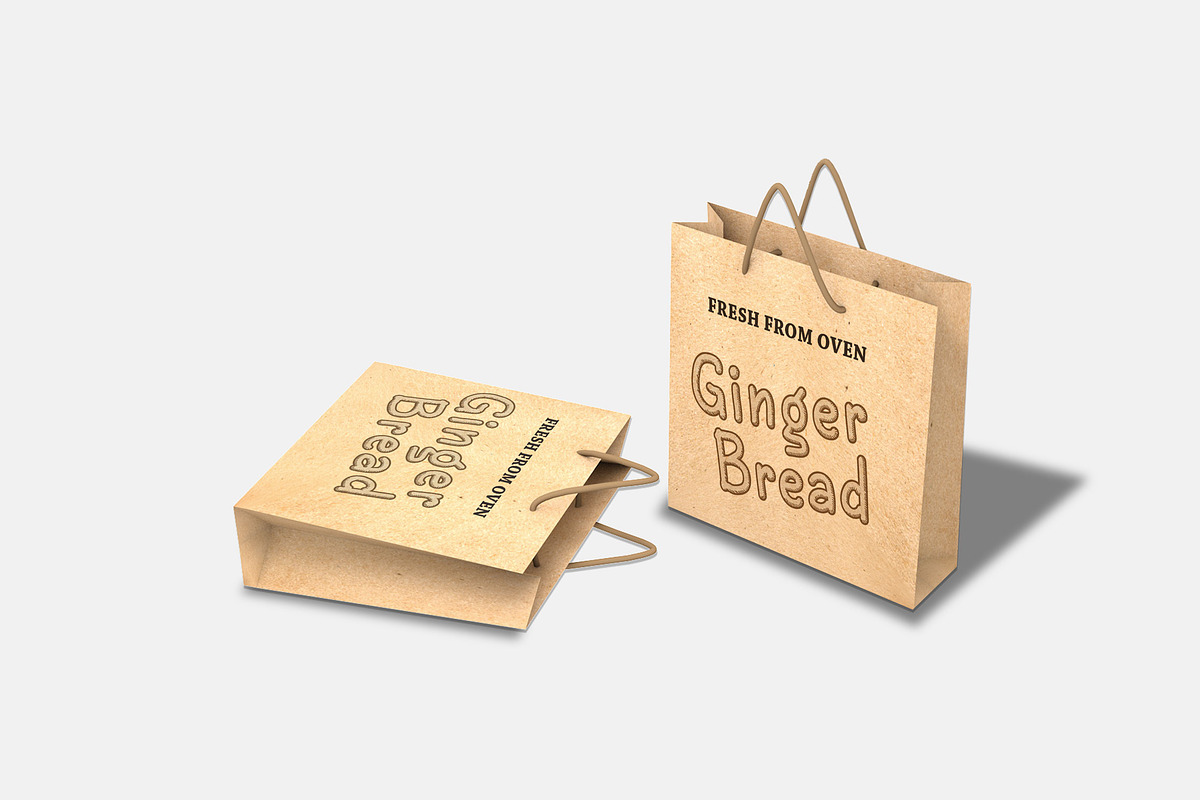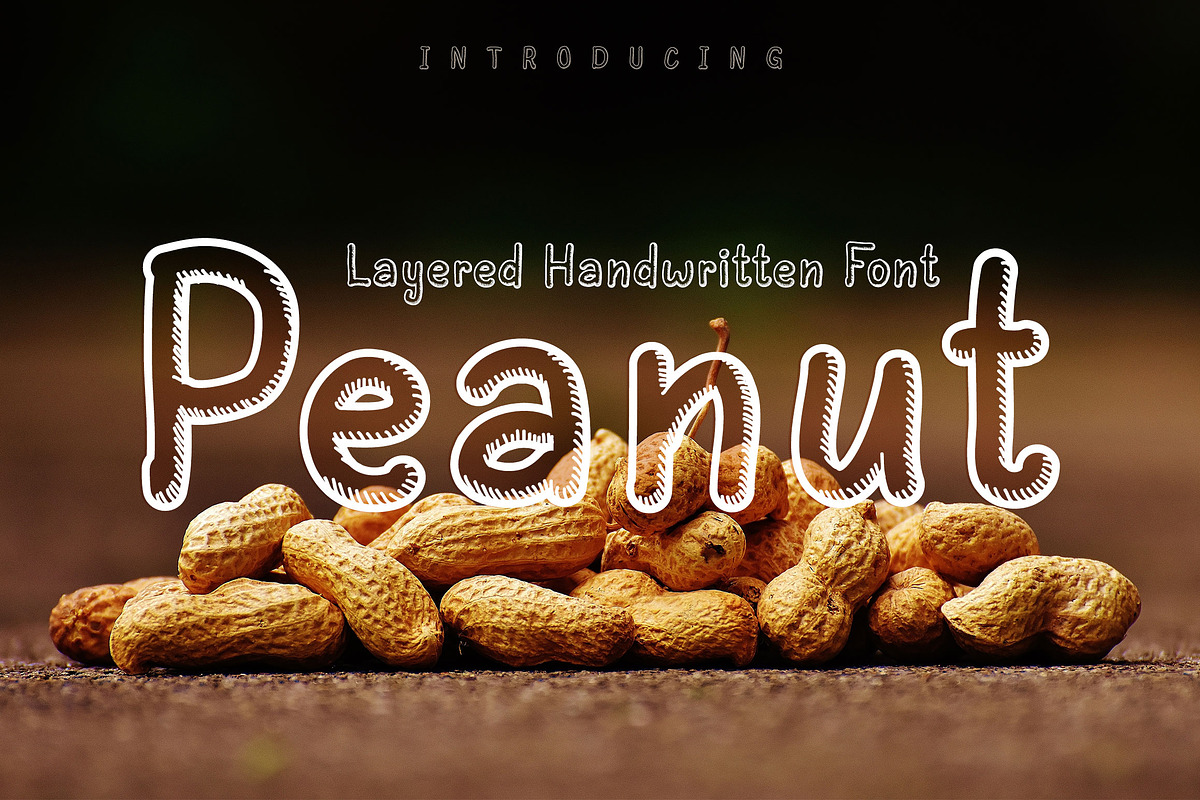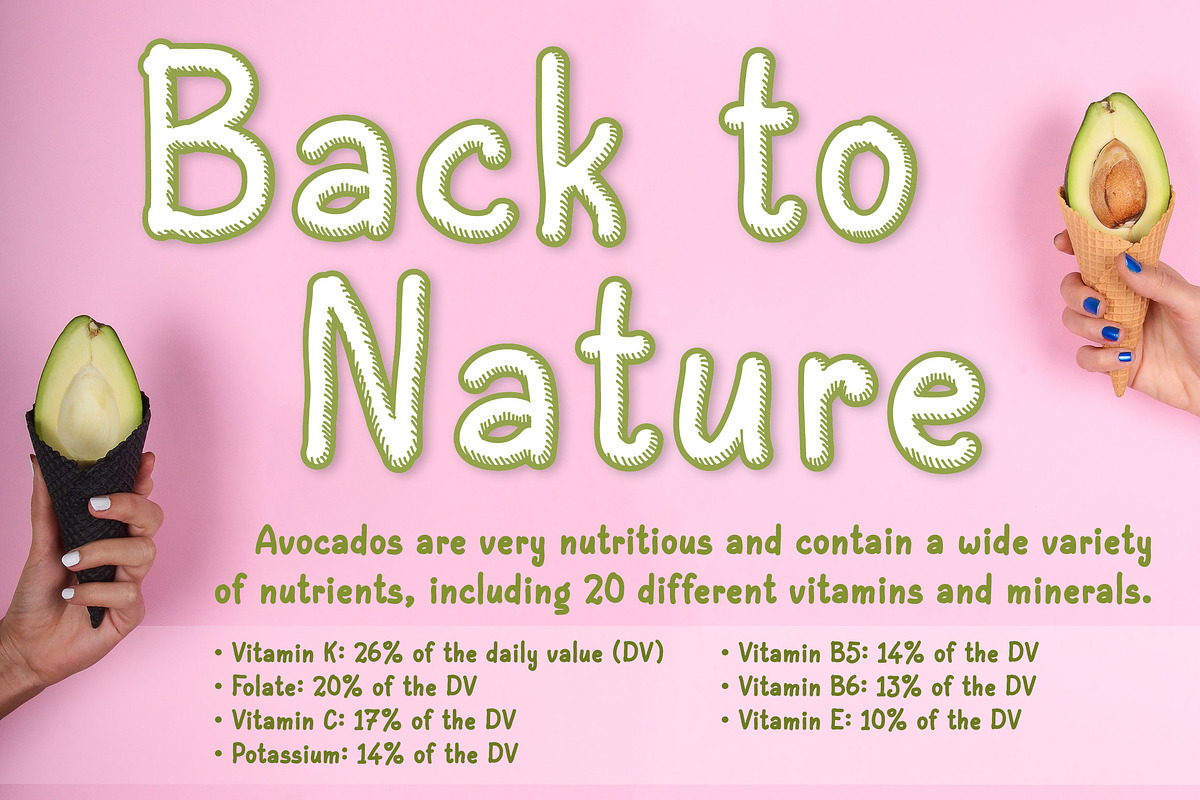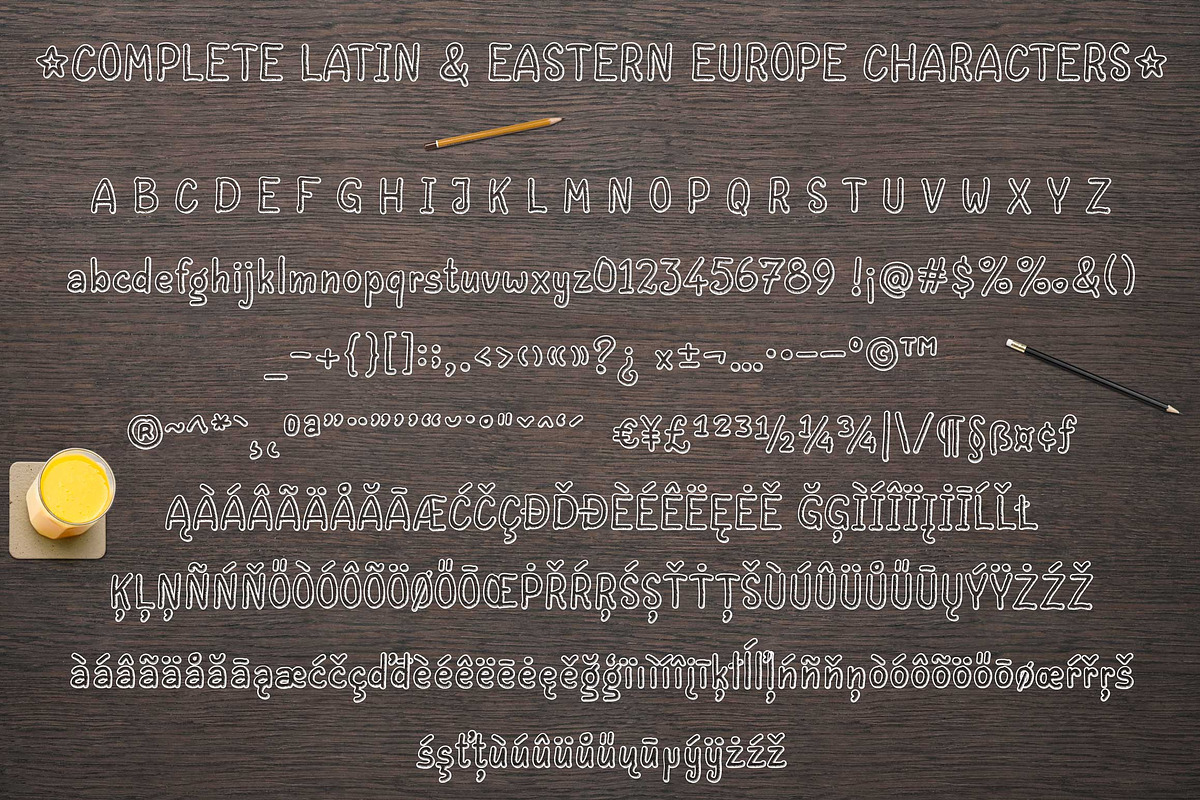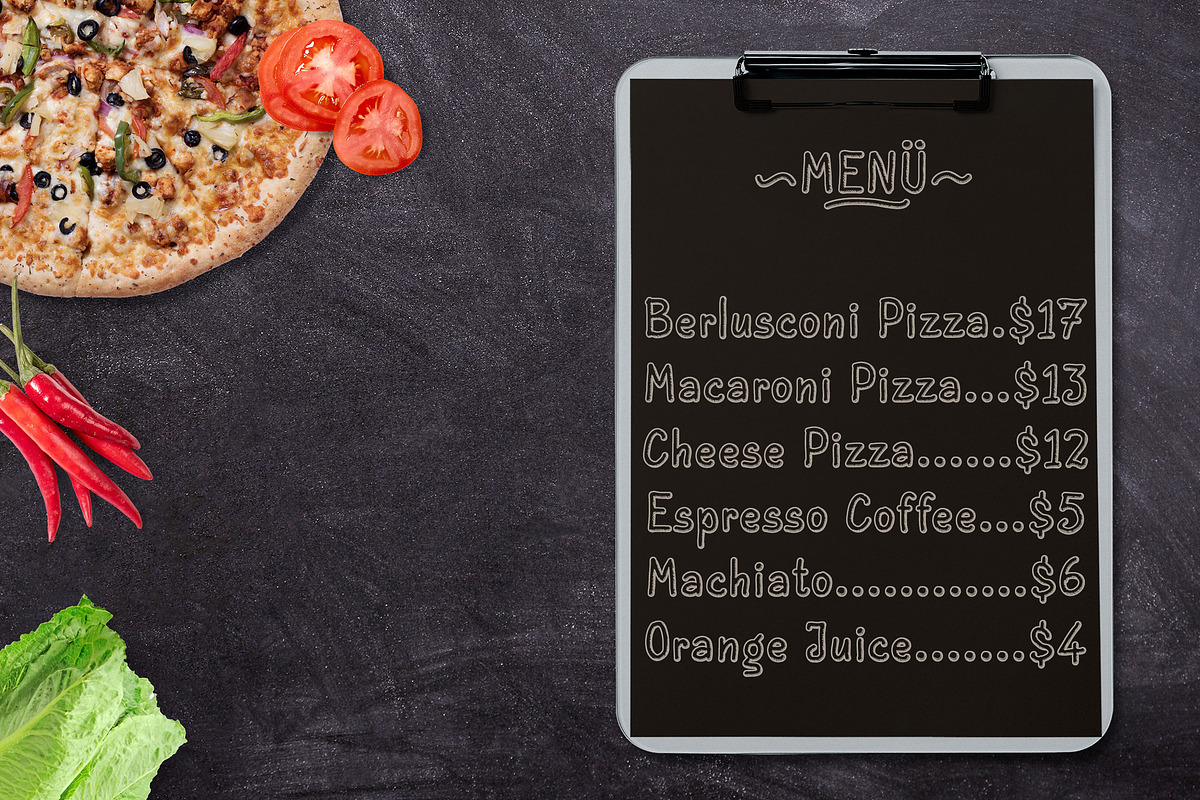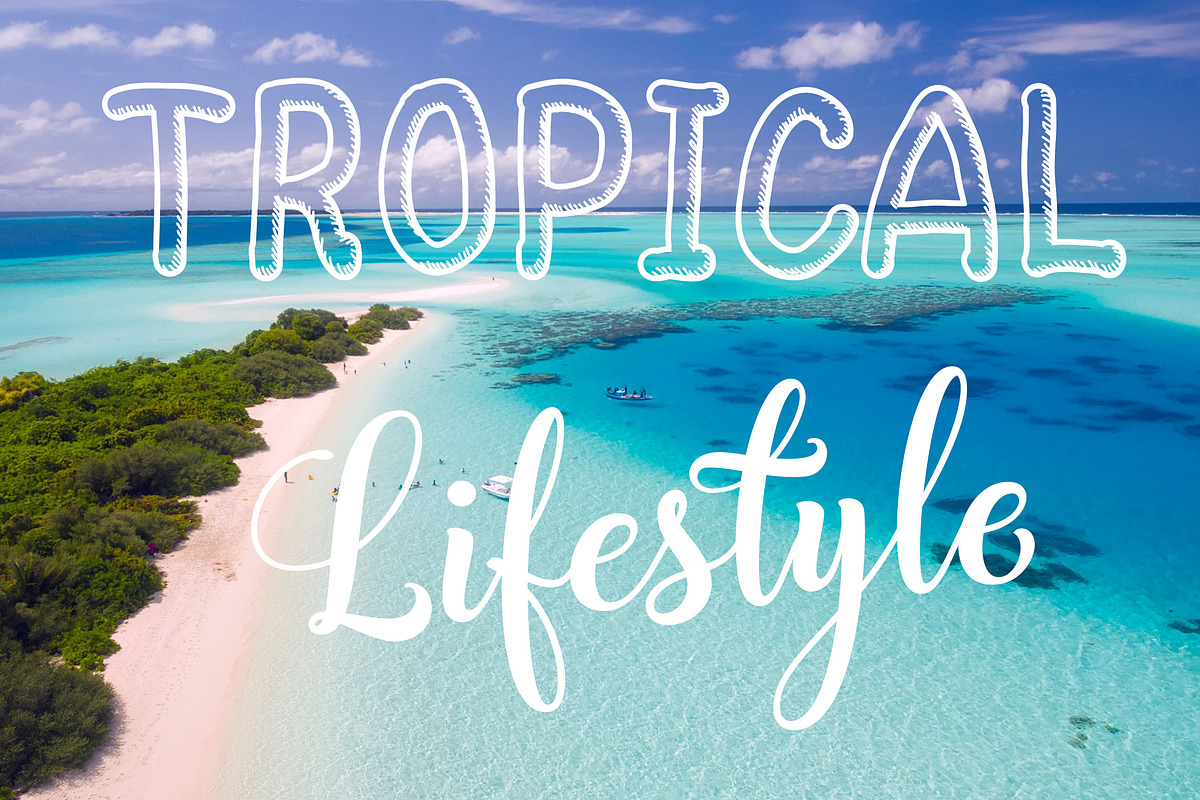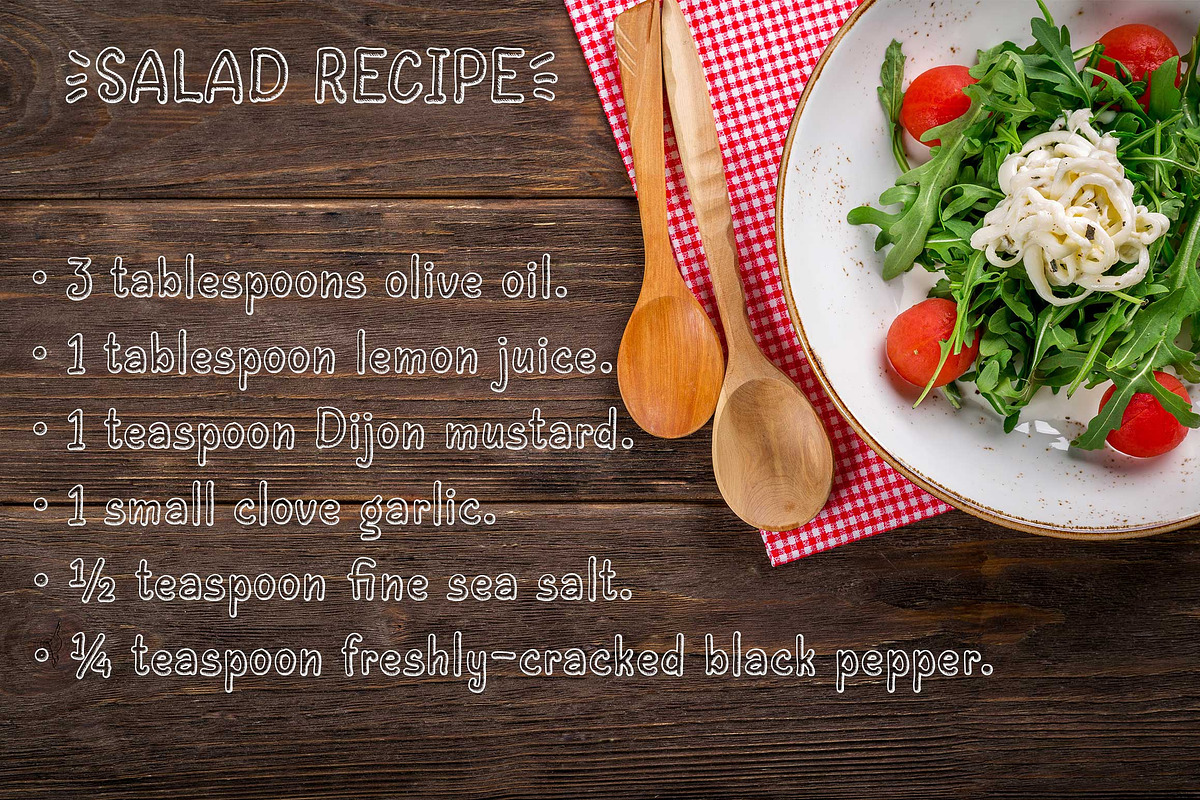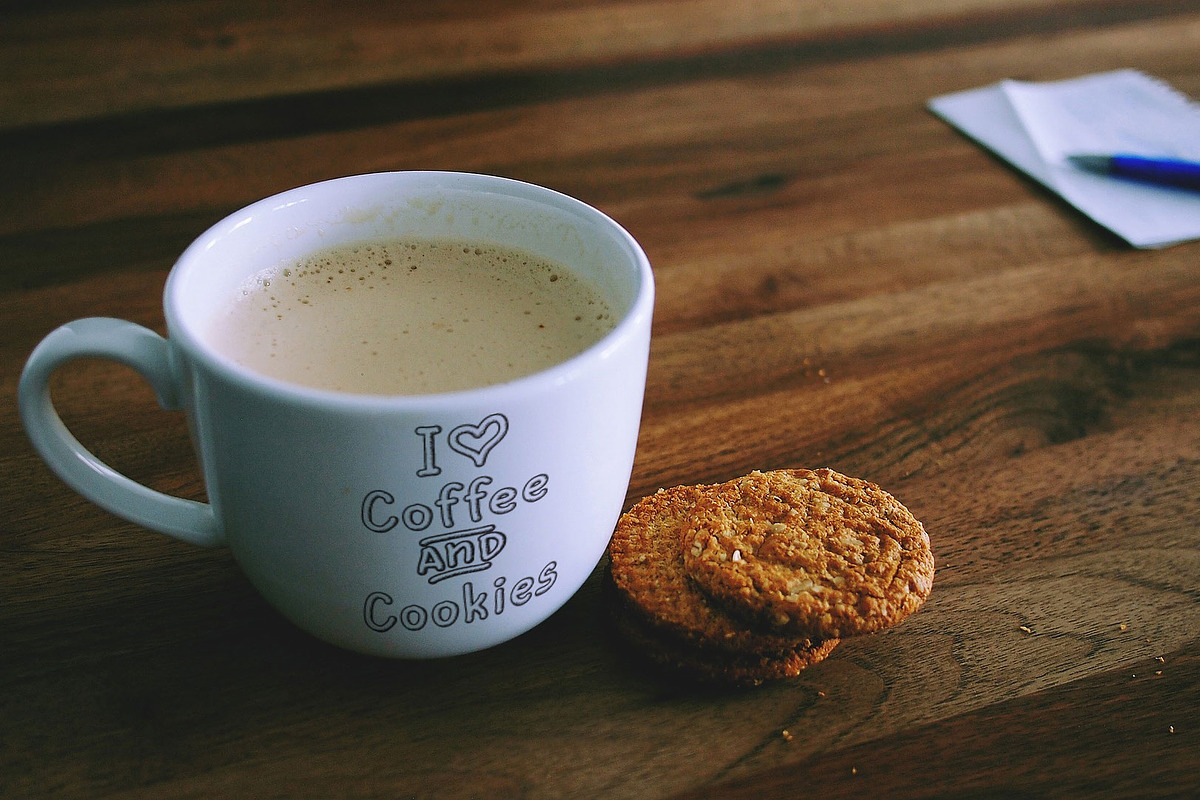
Peanut | Layered Handwritten Font
Introducing to a new crunchy hand drawing font, it is delicious like a peanut!
This font is a layered font, front for the stroke, and bottom for the fill. Sure we can use just the stroke or the fill.
This Peanut will suitable for title or text in food theme, beverages, school, coffee, cartoon, traveling, nature, etc.
This font is supported for all Latin and Eastern Europe characters (315 glyphs).